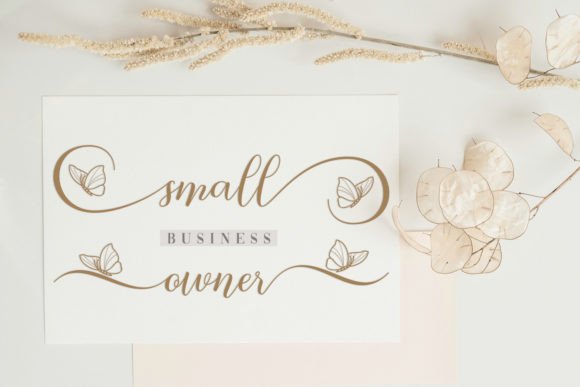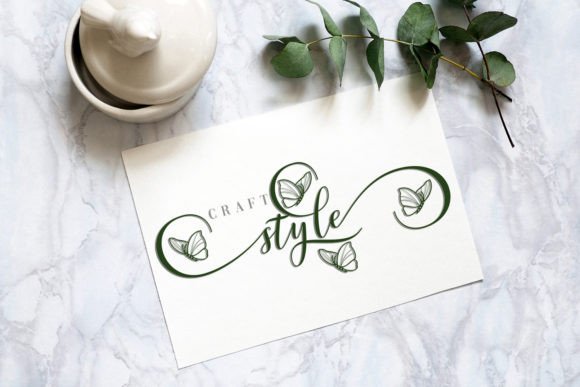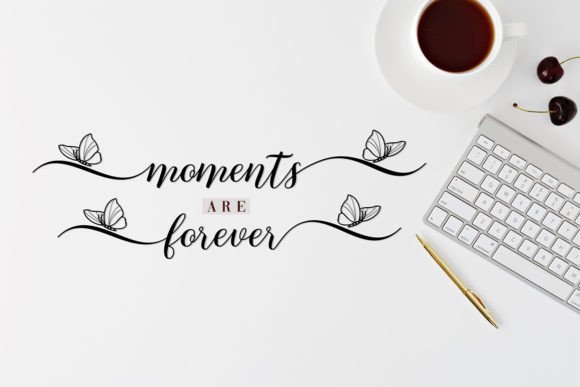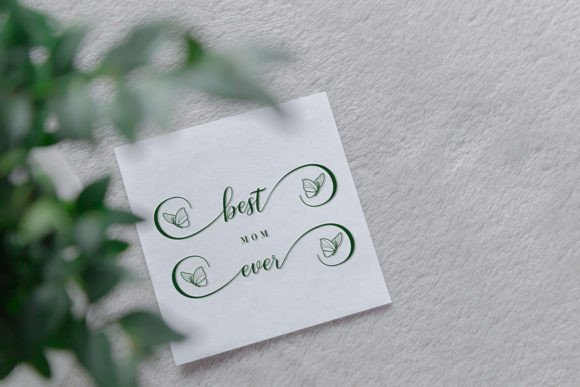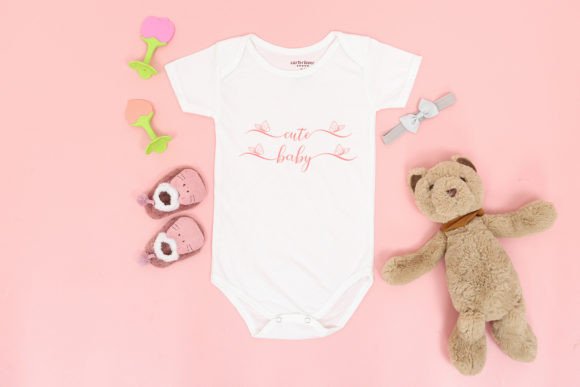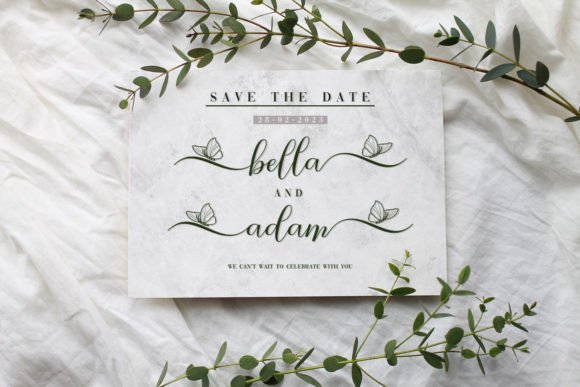
Discover the Elegance of Adilla Font: A Timeless Calligraphy Choice
Adilla Font, commonly referred to as Adila, is a beautiful form of calligraphy that has captured the hearts of designers and crafters alike. This stunning script font is also known as cursive writing, and its popularity endures due to its classic, sophisticated appeal. Characterized by its flowing, connected letters and elegant lines, Adilla Font is the perfect choice for a variety of applications, from formal invitations and wedding cards to certificates, diplomas, and other important documents.
The Distinctive Features of Adilla Font
One of the defining features of Adilla Font is its fluid, cursive style, which gives it a unique and distinctive look. The letters flow smoothly into one another, creating a sense of continuity and harmony. This elegant font is not only visually appealing but also highly versatile, making it suitable for a wide range of design projects. Whether you’re creating a formal invitation, a wedding card, or a certificate, Adilla Font is sure to add a touch of sophistication and refinement.
Adilla Font is PUA (Private Use Area) encoded, which means that you can access all glyphs and swashes effortlessly. This feature makes it incredibly easy to use and customize the font to suit your design needs. With PUA encoding, you can unlock the full potential of Adilla Font and explore its many creative possibilities. Whether you’re a designer or a crafter, this feature allows you to work efficiently and effectively, saving you time and effort.
Applications of Adilla Font
Adilla Font is an incredibly versatile font that can be used in a variety of applications. Some of the most popular uses for this font include:
- Formal invitations: Adilla Font is a popular choice for formal invitations, such as wedding invitations, graduation announcements, and other special events.
- Wedding cards: The elegant, cursive style of Adilla Font makes it a beautiful choice for wedding cards and stationery.
- Certificates and diplomas: Adilla Font is often used for official documents, such as certificates, diplomas, and awards.
- Stationery and paper goods: Adilla Font can be used to create beautiful stationery, paper goods, and other craft projects.
Why Designers and Crafters Love Adilla Font
Designers and crafters love Adilla Font for many reasons. Some of the benefits of using this font include:
- Elegant and sophisticated: Adilla Font adds a touch of elegance and sophistication to any design project.
- Versatile: This font can be used in a variety of applications, from formal invitations to certificates and diplomas.
- Easy to use: Adilla Font is PUA encoded, making it easy to access all glyphs and swashes.
- Timeless: The classic, cursive style of Adilla Font ensures that it will remain a popular choice for years to come.
Tips for Using Adilla Font
Here are some tips for using Adilla Font in your design projects:
- Pair with complementary fonts: Adilla Font pairs beautifully with other fonts, such as serif and sans-serif fonts.
- Experiment with colors: Try pairing Adilla Font with different colors to create a unique and eye-catching design.
- Use for headings and titles: Adilla Font is perfect for headings and titles, adding a touch of elegance and sophistication to your design.
- Customize with glyphs and swashes: Take advantage of the PUA encoding feature to customize Adilla Font with glyphs and swashes.
In conclusion, Adilla Font is a timeless and elegant calligraphy choice that is perfect for designers and crafters. Its flowing, connected letters and elegant lines make it a beautiful addition to any design project. With its PUA encoding feature, Adilla Font is easy to use and customize, making it a versatile and sophisticated font for a wide range of applications.